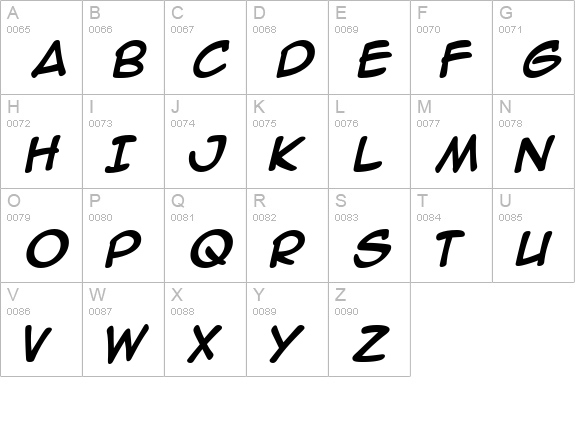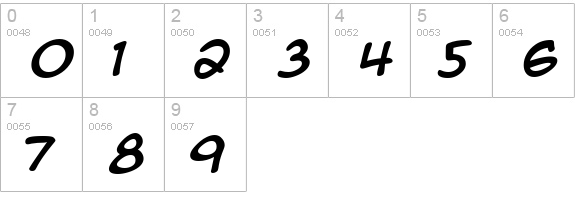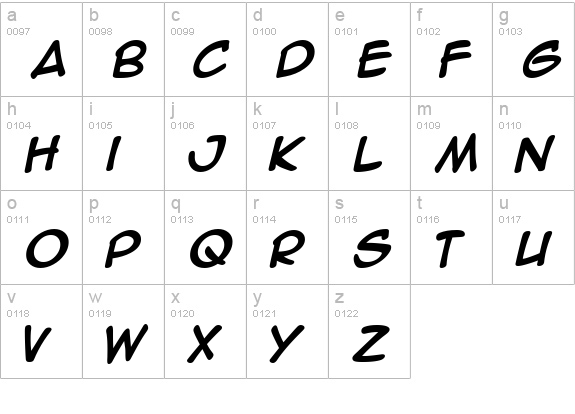
Anime Ace Bold Font Details
Anime Ace Bold is a strong, high-contrast variant in the Anime typeface family \xE2\x80\x94 well suited to headlines, attention-grabbing titles, and strong calls-to-action.
Anime Ace Bold is a dynamic and eye-catching font that perfectly captures the essence of Japanese animation. Its bold and playful style makes it ideal for titles, headings, and other prominent text in your designs. With its sharp edges and clean lines, Anime Ace Bold exudes a sense of energy and excitement that will surely grab the attention of your audience. What's even better is that Anime Ace Bold is available for free download at FontsMarket.com. That's right, you can add this fantastic font to your collection without spending a penny. So why wait? Download Anime Ace Bold today and give your projects a touch of anime-inspired flair!